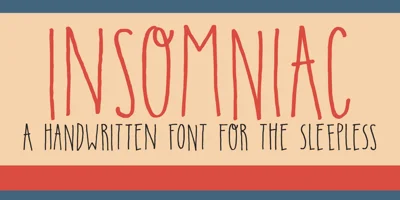
Insomniac Font
Insomniac Font is perfect for late-night coffee shop branding, midnight movie posters, nocturnal event promotions, sleep disorder awareness campaigns, night shift worker materials, 24-hour business signage, grunge music venues, underground club marketing, dark aesthetic designs, and atmospheric projects that capture the restless energy of sleepless nights and midnight creativity.
What makes Insomniac Font exciting is its haunting ability to capture the raw intensity and restless energy of sleepless nights through its edgy letterforms that seem etched by the fatigue and heightened awareness that comes with midnight hours. This compelling typeface embodies the spirit of nocturnal creativity and restless minds with its irregular character that speaks of racing thoughts, creative breakthroughs, and the unique clarity that emerges when the world sleeps but inspiration refuses to rest.
The Insomniac Font family includes regular, light, and distressed variations designed to maintain its midnight authenticity across various nocturnal applications. Special night-themed symbols, restless ornaments, and sleep-deprived decorative elements complement the main typeface, while irregular spacing mirrors the unpredictable rhythms of insomnia for authentic late-night design applications.
Insomniac Font offers night owls and creative insomniacs access to typography that understands the midnight struggle. Its authentically crafted letterforms maintain excellent legibility while projecting an image of nocturnal creativity and restless determination. The font's versatile nature works brilliantly for both professional nighttime businesses and personal projects born from sleepless inspiration.
Embrace the midnight muse with Insomniac Font and create designs that honor the creative power of sleepless nights while connecting with fellow insomniacs who find inspiration in darkness.